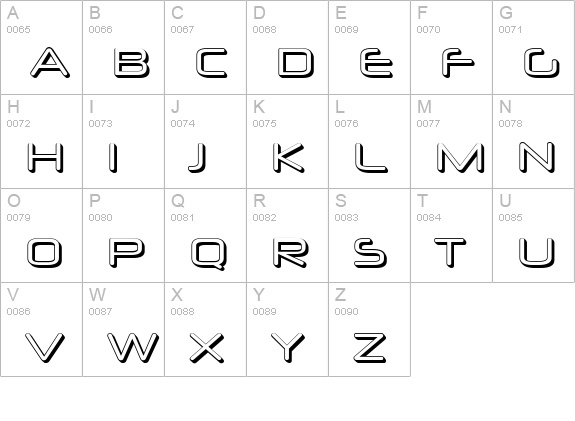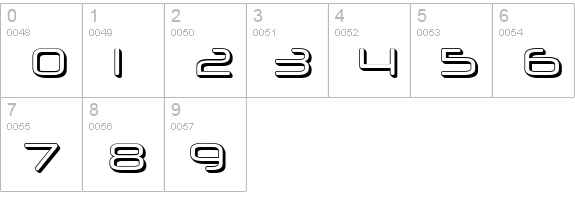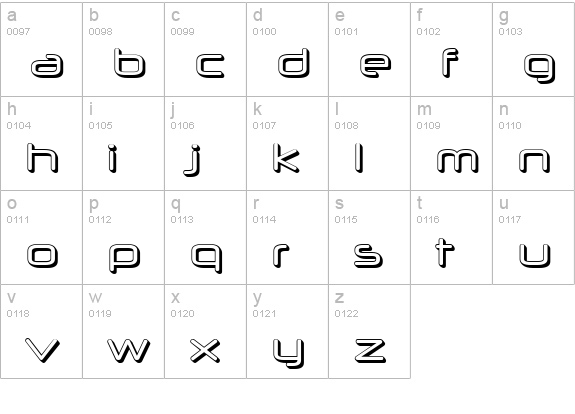
Neuropol X 3D Font Details
Neuropol X 3D font is a futuristic and eye-catching typeface that will bring a modern edge to your designs. With its sleek and geometric design, this font is perfect for projects that require a contemporary and high-tech look. The 3D effect adds depth and dimension to the letters, making them stand out on any digital or print material. What sets Neuropol X 3D font apart is not only its cutting-edge style but also the fact that it is available for free download at FontsMarket.com. You can easily access this unique font and incorporate it into your projects without any cost. Whether you are working on branding, advertising, or any other creative endeavor, Neuropol X 3D font will elevate your designs and make a lasting impression. Get your hands on this font today and take your work to the next level!